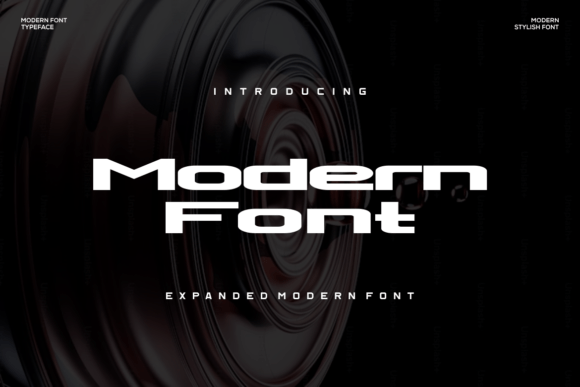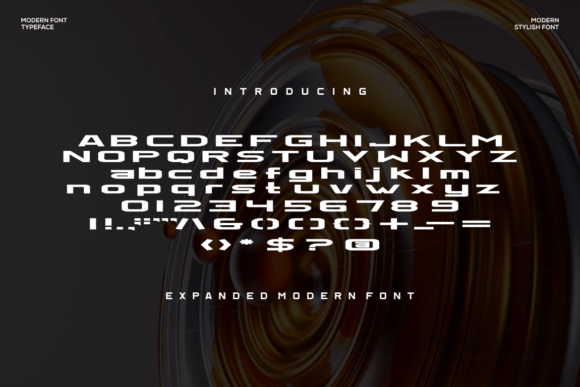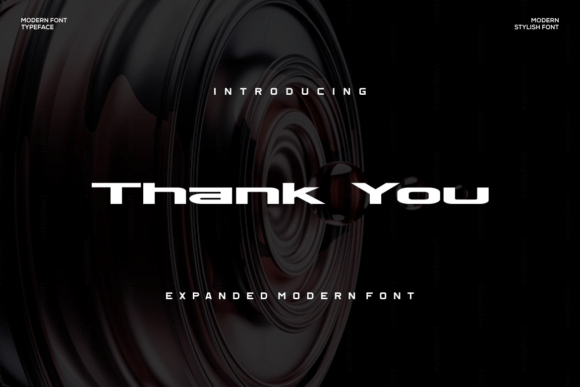
Introducing the Perfect Blend of Boldness and Authenticity
Imagine you’re brainstorming ideas for your next big project, and suddenly, the perfect font pops into your mind. It’s a moment of pure creative bliss, where everything clicks into place. This is exactly what happens when you come across the Agura Font – a modern display font that’s sure to elevate your branding game.
| 📌 Product Name | Agura Font |
| 👤 Author | agusbolang1616 |
Designed to make a statement, the Agura Font is perfect for logos, t-shirt printing, and any other creative project that requires a touch of boldness. With its authentic and eye-catching design, this font is a valuable addition to any designer’s toolkit. Whether you’re working on a new brand identity or a marketing campaign, the Agura Font is sure to make your work stand out.
Agura Font Key Features
- Font Family: Agura is a sans-serif font family that offers a clean and modern look, suitable for various design applications.
- Character Set: Agura Font includes a wide range of characters, including Latin, Cyrillic, and Greek alphabets, making it a versatile choice for multilingual designs.
- Unique Characteristics: Agura Font features a unique geometric design with subtle rounded edges, giving it a friendly and approachable feel while maintaining a level of sophistication.
Agura Font Review
Overall, I’d say Agura Font is a decent addition to any designer’s toolkit, but it has its quirks.
- Unique character set: Agura Font boasts a distinctive set of characters that can add a touch of personality to your designs.
- Legibility: Despite its unconventional design, Agura Font is surprisingly legible, even at smaller font sizes.
- Spacing issues: In some cases, the font’s letter spacing can be inconsistent, which may affect readability.
- Lack of extensive language support: Agura Font’s character set is limited, which may not be ideal for designers working with non-Latin scripts.
- Not ideal for large blocks of text: Due to its unconventional design, Agura Font can be tiring to read when used extensively.
Overall, I’d recommend Agura Font for projects where you need a unique touch or a distinctive visual identity. However, it’s not the best choice for large-scale text or projects requiring extensive language support.
Agura Font is ideal for:
– Creating modern and minimalist designs.
– Pairing with bold graphics or illustrations.
– Using in corporate branding and marketing materials.
For the most effective use of Agura Font, keep your design clean and simple, and use the font consistently throughout your project.